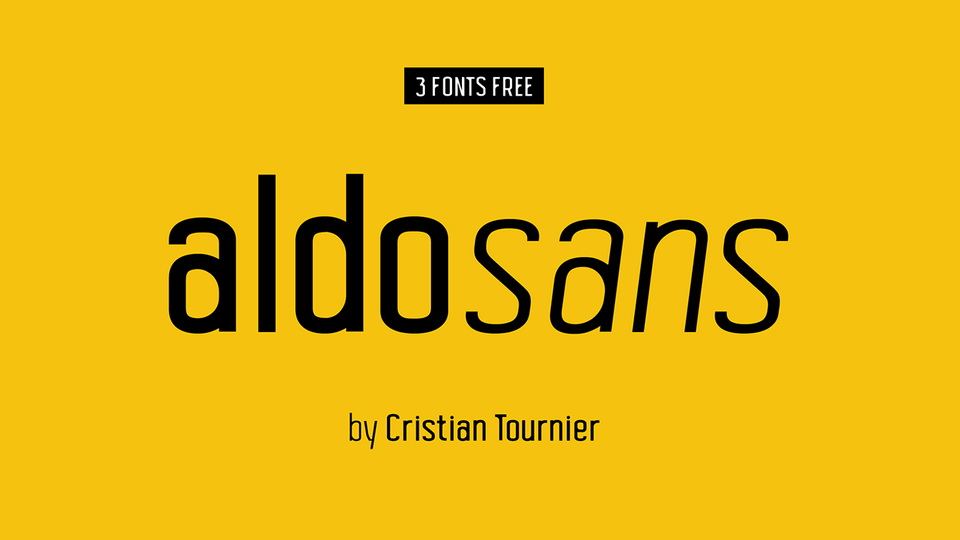
Aldo Sans Font
Aldo Sans is a free modern sans serif family designed in condensed style with rounded corners. The typeface has 3 styles: Regular, Italic and Bold, contains uppercase and lowercase letters, numbers, symbols, multilingual accents. The greatest virtue of this family is the high performance of characters per line, which makes it interesting for developments on printed platforms, such as magazines and supplements.
• Name: Aldo Sans
• Author: Cristian Tournier